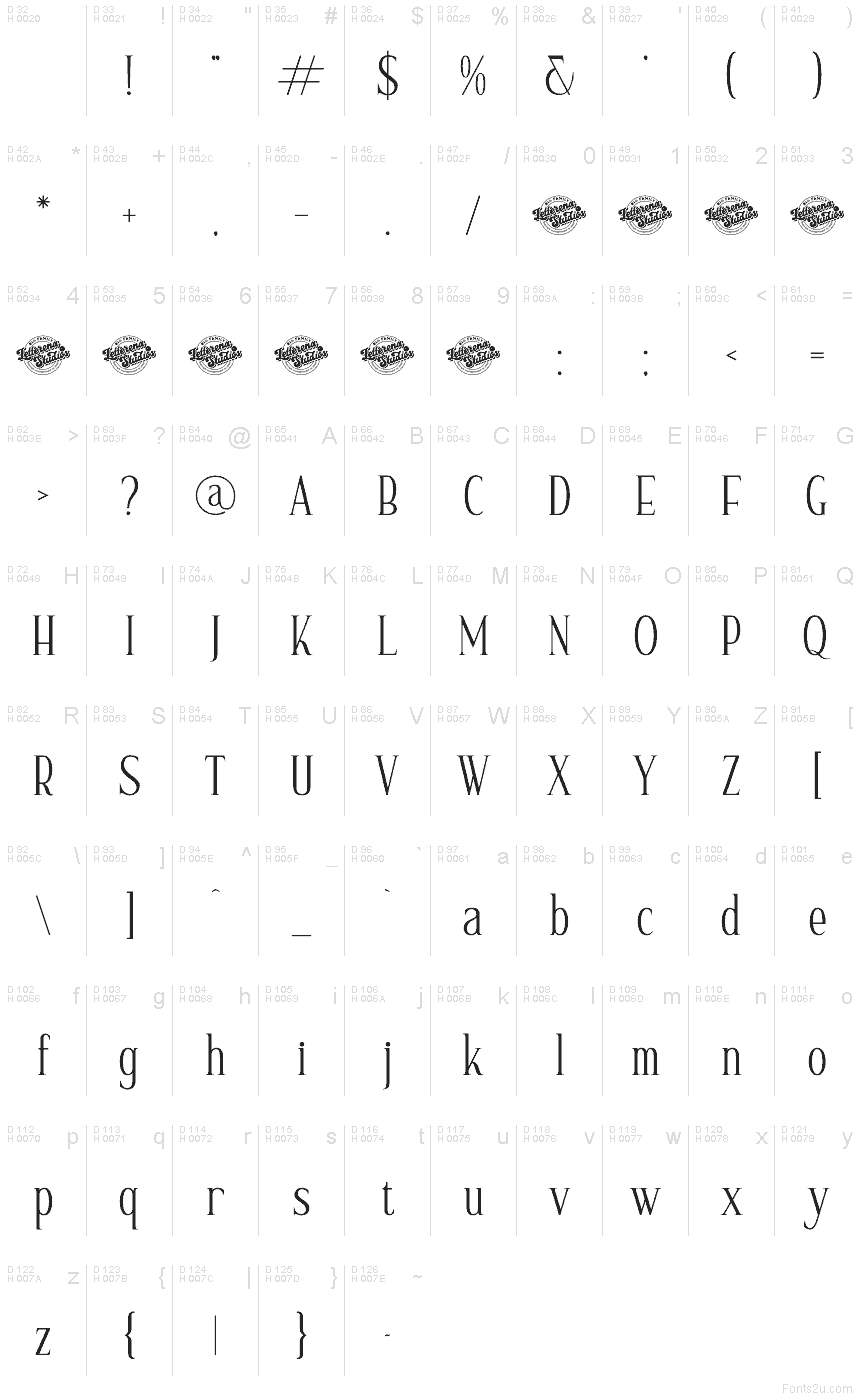
Nerhole font by Letterena Studios is a condensed serif font with a sophisticated and elegant appeal. The typeface combines both classic and modern vibes in its serifs which gives it a unique appearance. Nerhole has thin tall letters coupled with curvy accents in selected places for refined visual appeal.
Thanks to its versatility, Nerhole can be used on logos, magazines, newspaper articles, invitation cards, packaging design, official t-shirts, posters and flyers printouts among many other options. The font can be downloaded for free in TTF format for both PC and MAC systems.